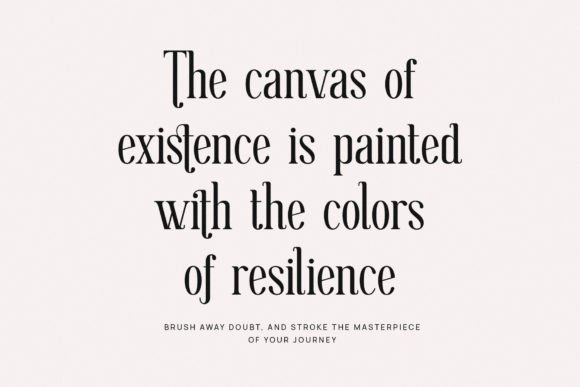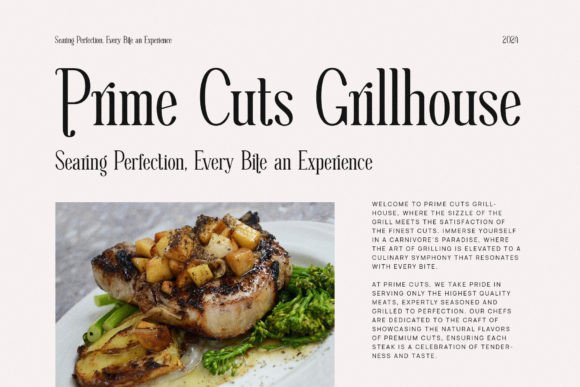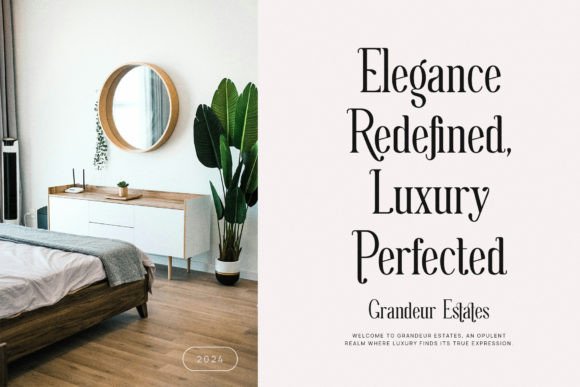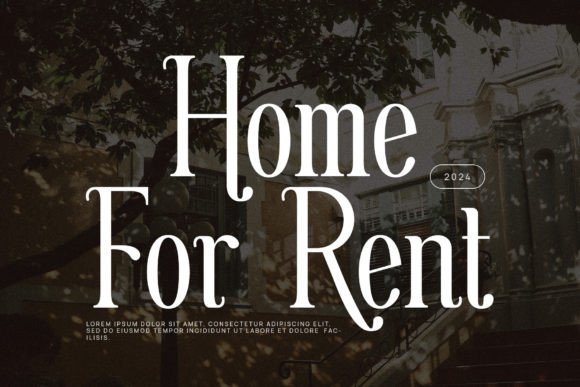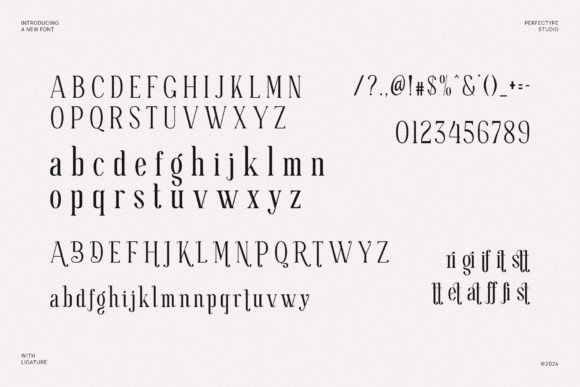
Introducing Cristtan Font: Elevate Your Designs with Elegance and Modernity
In the world of typography, finding the perfect font that combines elegance, modernity, and versatility can be a daunting task. However, if you’re looking for a typeface that can elevate your designs and make them stand out, look no further than Cristtan Font. This exquisite serif typeface seamlessly blends classic sophistication with a contemporary twist, making it an ideal choice for a wide range of design projects.
Elegant Serif Typeface for Timeless Designs
Cristtan Font boasts an elegant serif design that exudes refinement and luxury. Its intricate details and subtle flair make it perfect for creating sophisticated designs that convey a sense of high-end quality. Whether you’re working on branding projects, logos, wedding designs, or social media posts, this font is sure to impress. The elegant serif typeface of Cristtan Font adds a touch of classic sophistication to any design, making it ideal for designers and crafters who want to create timeless and memorable pieces.
Classy and Modern Style for Versatile Applications
What sets Cristtan Font apart is its unique blend of classic elegance and modern style. This font is not just a pretty face; it’s also highly versatile and can be used for a wide range of applications. From advertisements and product packaging to labels, photography, watermarks, and invitations, Cristtan Font is the perfect choice for any project that requires a high level of readability and visual appeal. Whether you’re designing for digital or print, this font is sure to deliver.
One of the standout features of Cristtan Font is its PUA (Private Use Area) encoding. This means that you can easily access all the amazing glyphs and ligatures that make this font so special. With PUA encoding, you can unlock the full potential of Cristtan Font and take your designs to the next level. Whether you’re a seasoned designer or a crafty DIY enthusiast, this feature makes it easy to get creative and experiment with different typography styles.
Cristtan Font is a dream come true for designers and crafters who want to create stunning visual content without sacrificing readability. This font is perfect for:
- Branding projects: Create a lasting impression with a custom logo or typography that reflects your brand’s personality.
- Wedding designs: Add a touch of elegance and sophistication to your wedding invitations, stationery, and decorations.
- Social media posts: Stand out on social media with eye-catching typography that grabs attention and conveys your message.
- Advertisements: Create compelling ads that drive results with a font that’s both elegant and modern.
- Product packaging: Elevate your product packaging with a font that’s both stylish and readable.
- Labels and photography: Add a professional touch to your labels and photography with a high-quality font.
- Invitations and stationery: Create beautiful invitations and stationery that reflect your personal style.
Key Benefits of Cristtan Font
So, what makes Cristtan Font so special? Here are just a few key benefits:
- Elegant serif typeface: Add a touch of classic sophistication to your designs.
- Classy and modern style: Perfect for a wide range of design projects, from branding to social media posts.
- PUA encoded: Easy access to glyphs and ligatures for added creativity.
- High readability: Perfect for designs that require clear and legible typography.
- Versatile applications: Suitable for digital and print designs, including branding, advertising, packaging, and more.